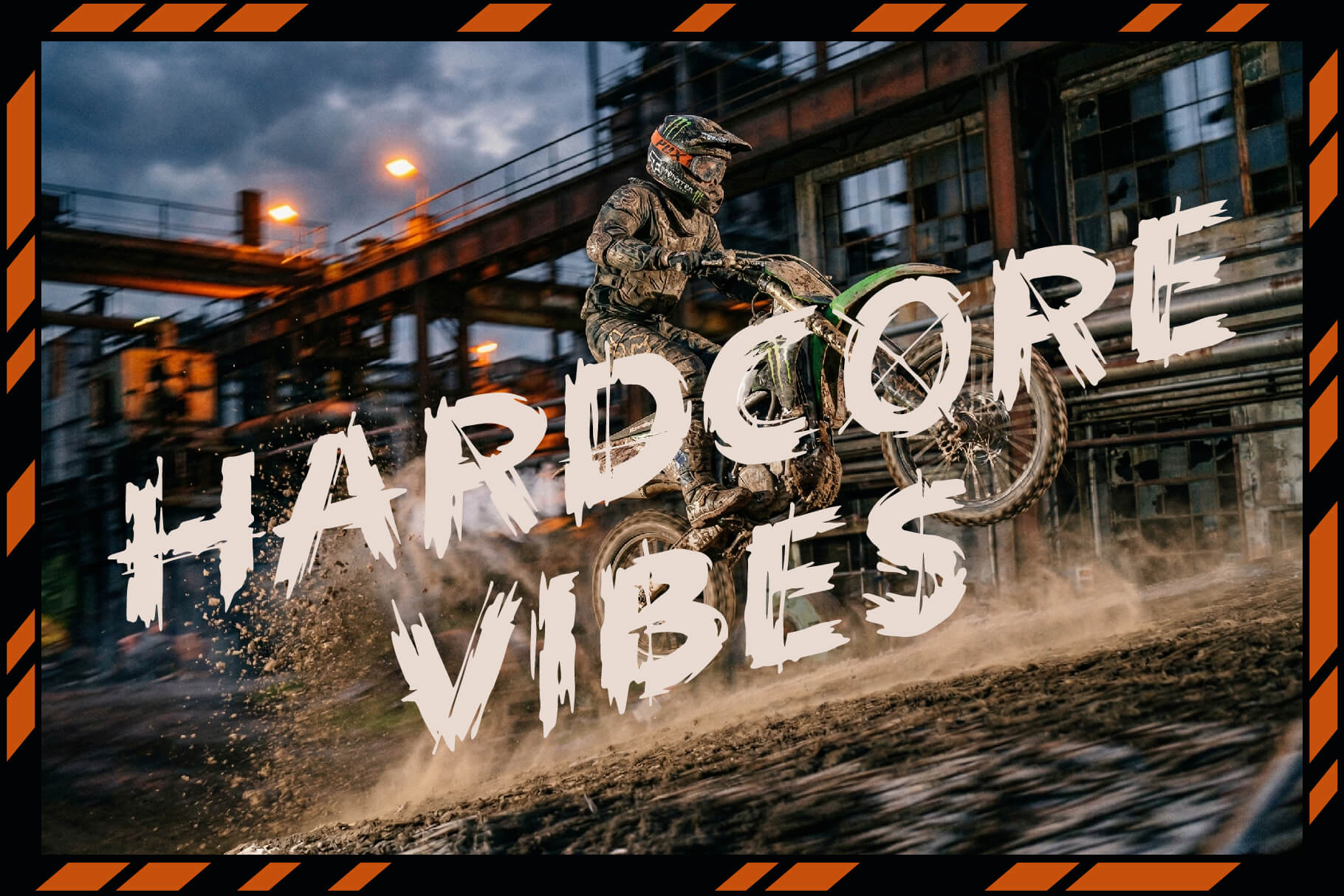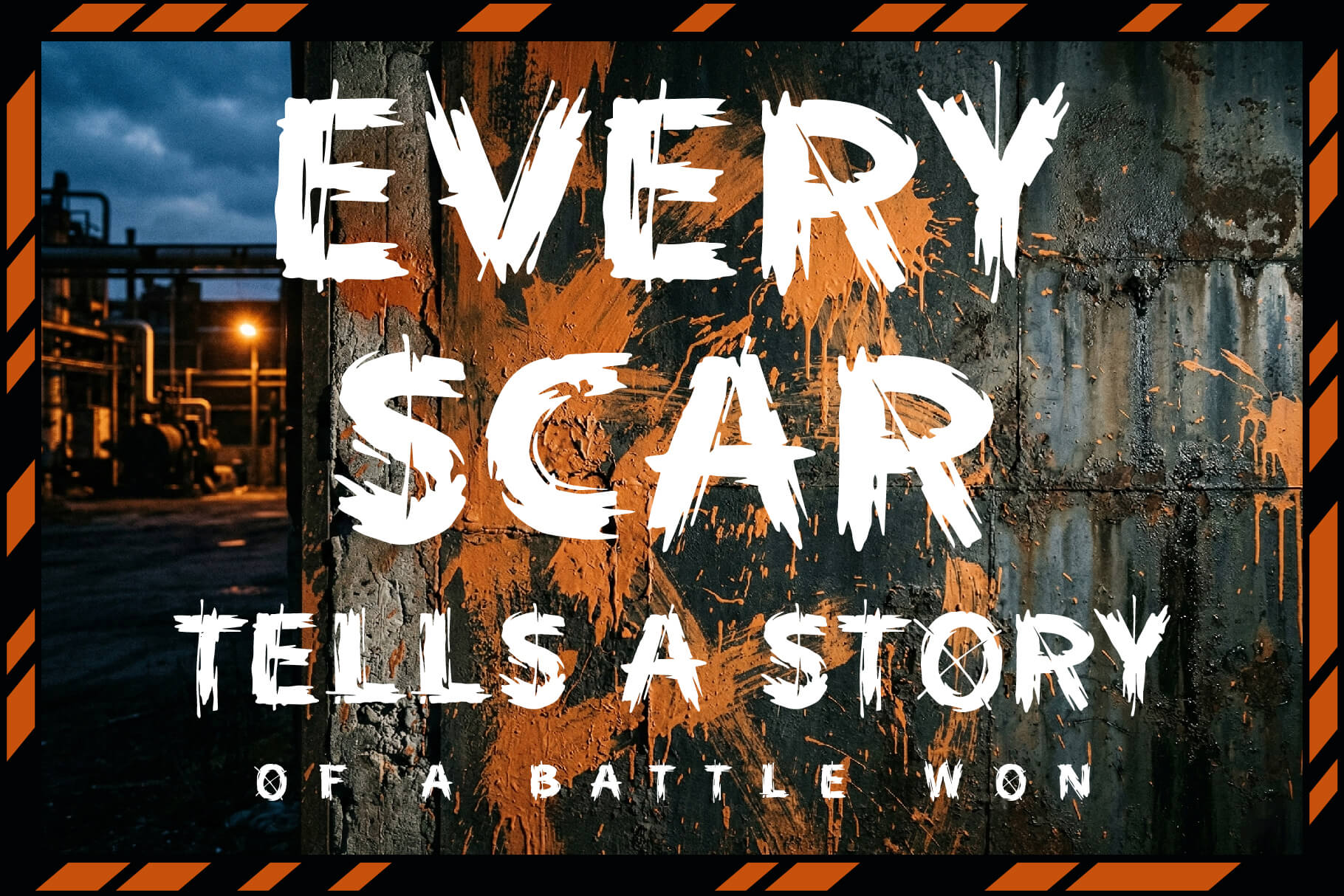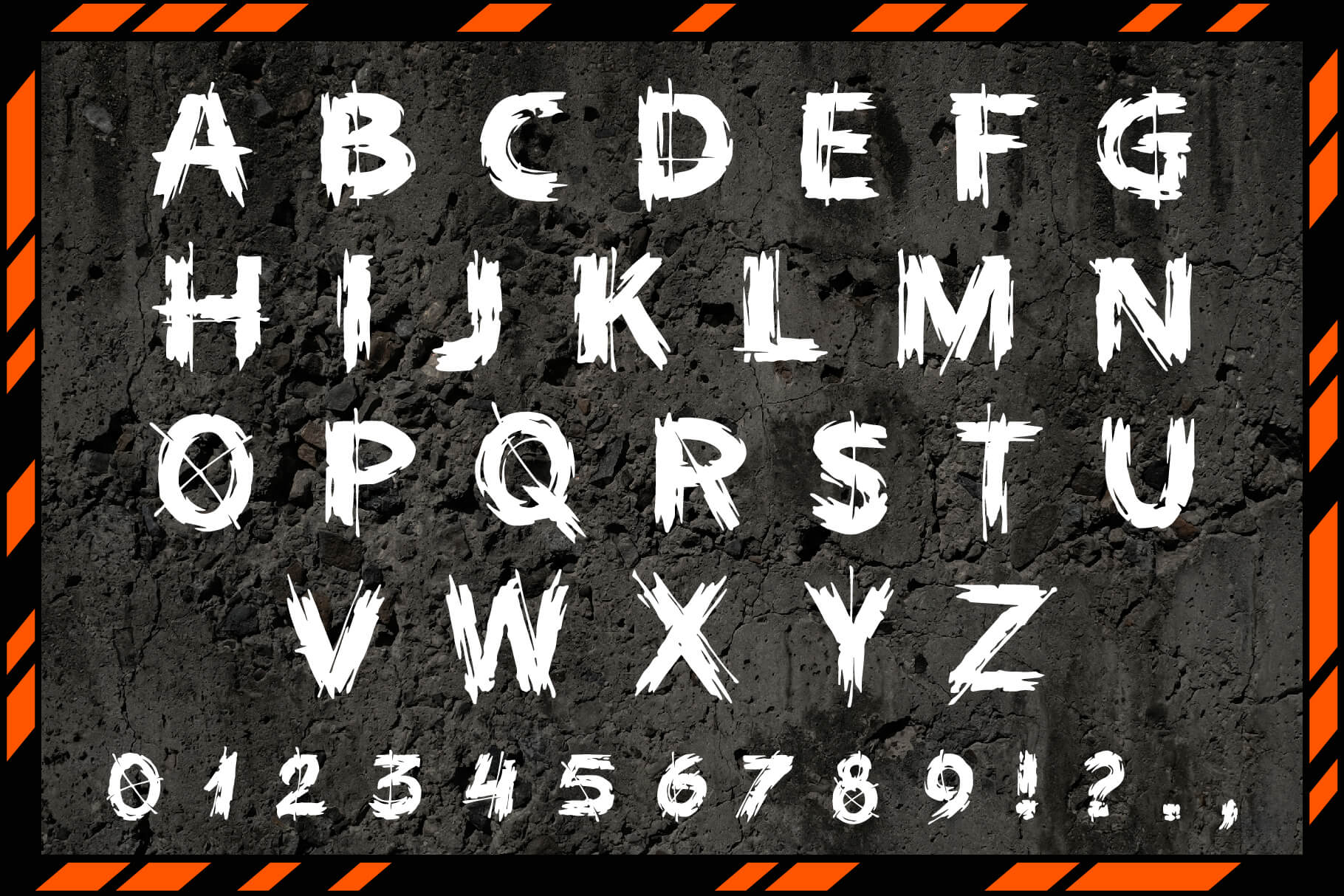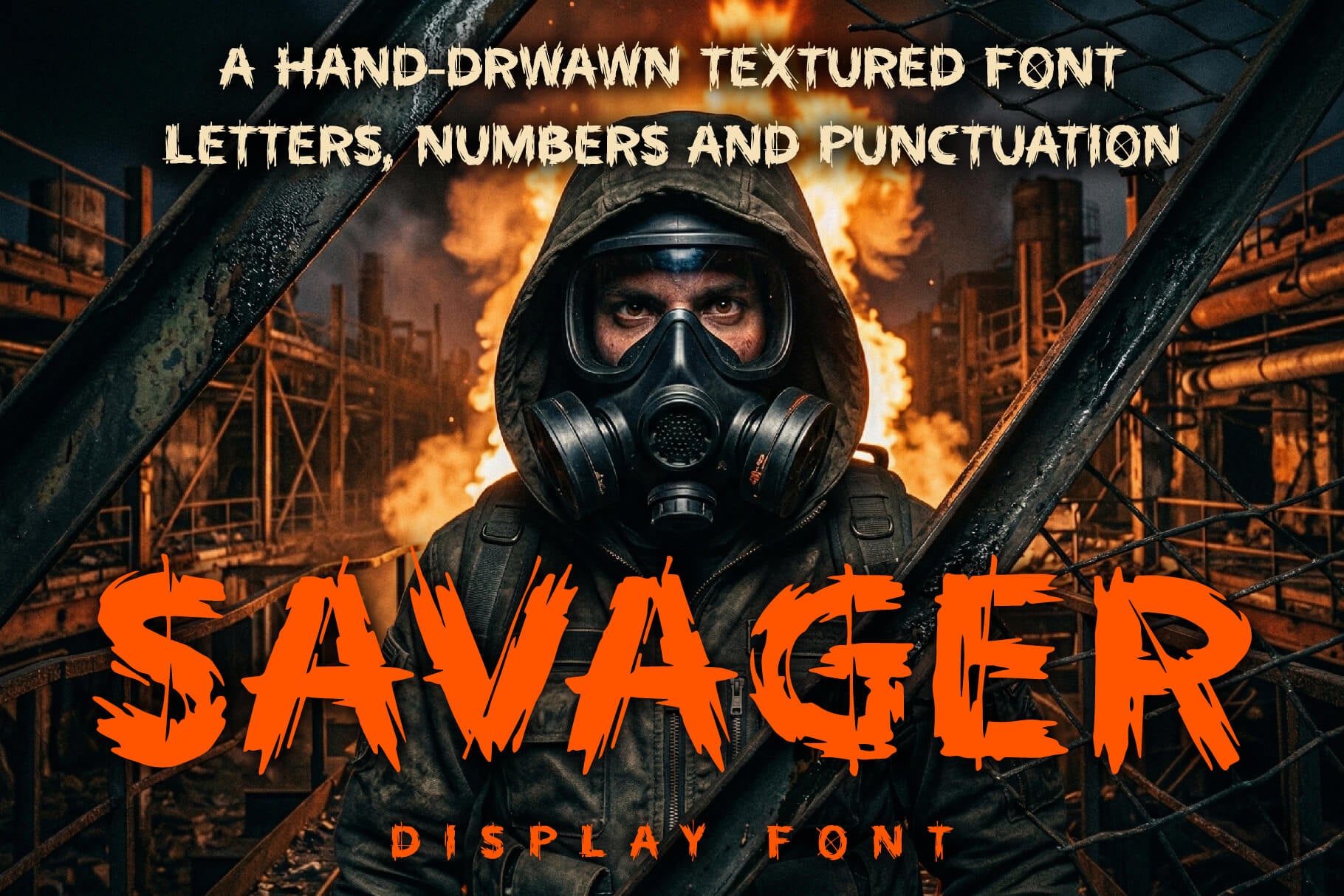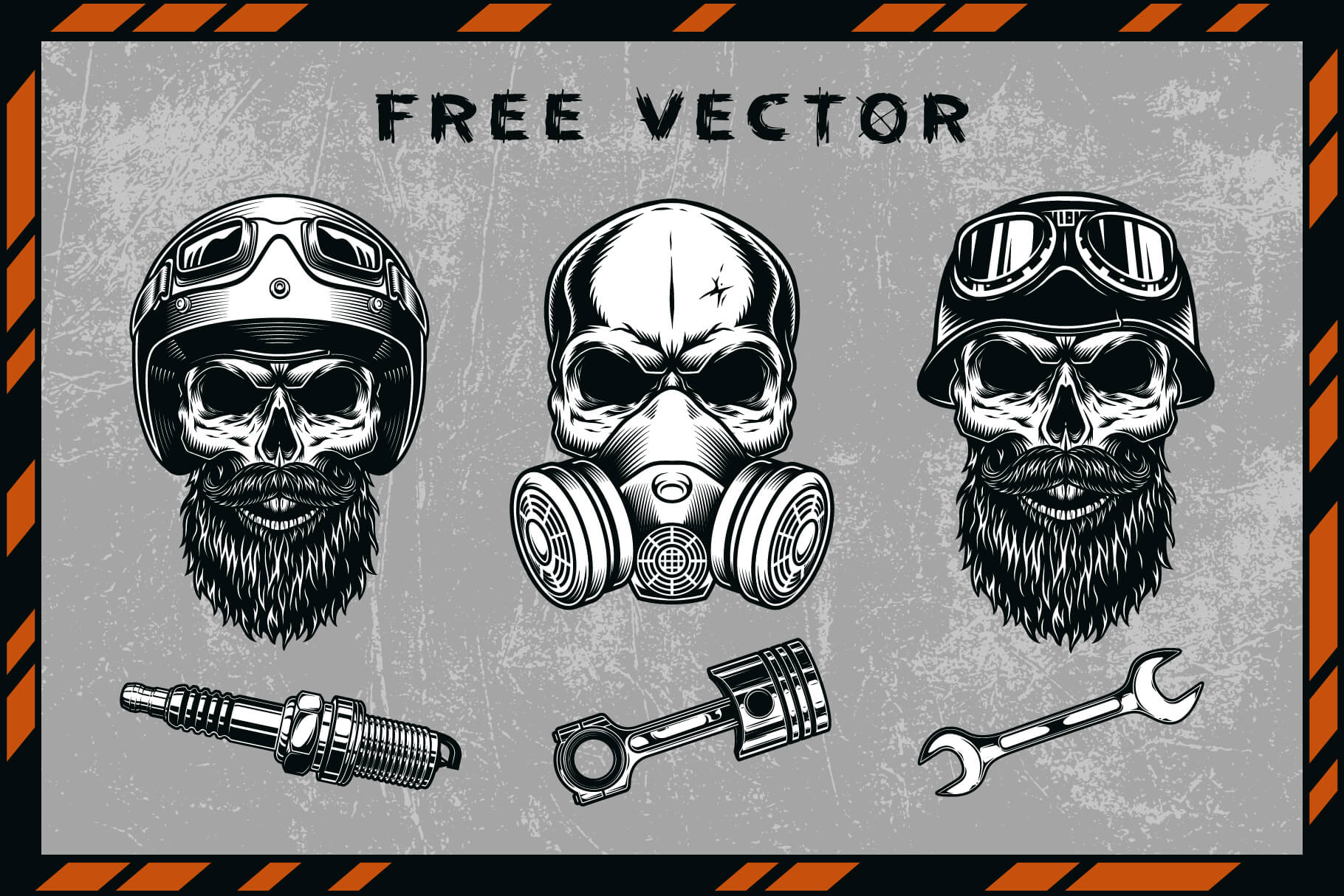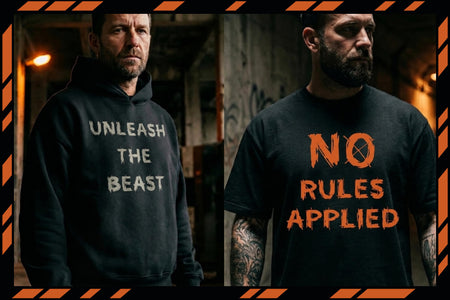
SAVAGER display font
SAVAGER is a raw, aggressive display typeface with a rough, savage character.
Its jagged, hand-crafted letterforms and gritty texture bring a fearless, underground energy to any layout, staying bold and readable at large sizes.
SAVAGER is made for metal and music branding, streetwear, posters, tattoo art and hard-hitting headlines.
IDEAL FOR
– Music and metal branding
– Streetwear and apparel
– Posters and album covers
– Tattoo and merch art
– Headlines and logos